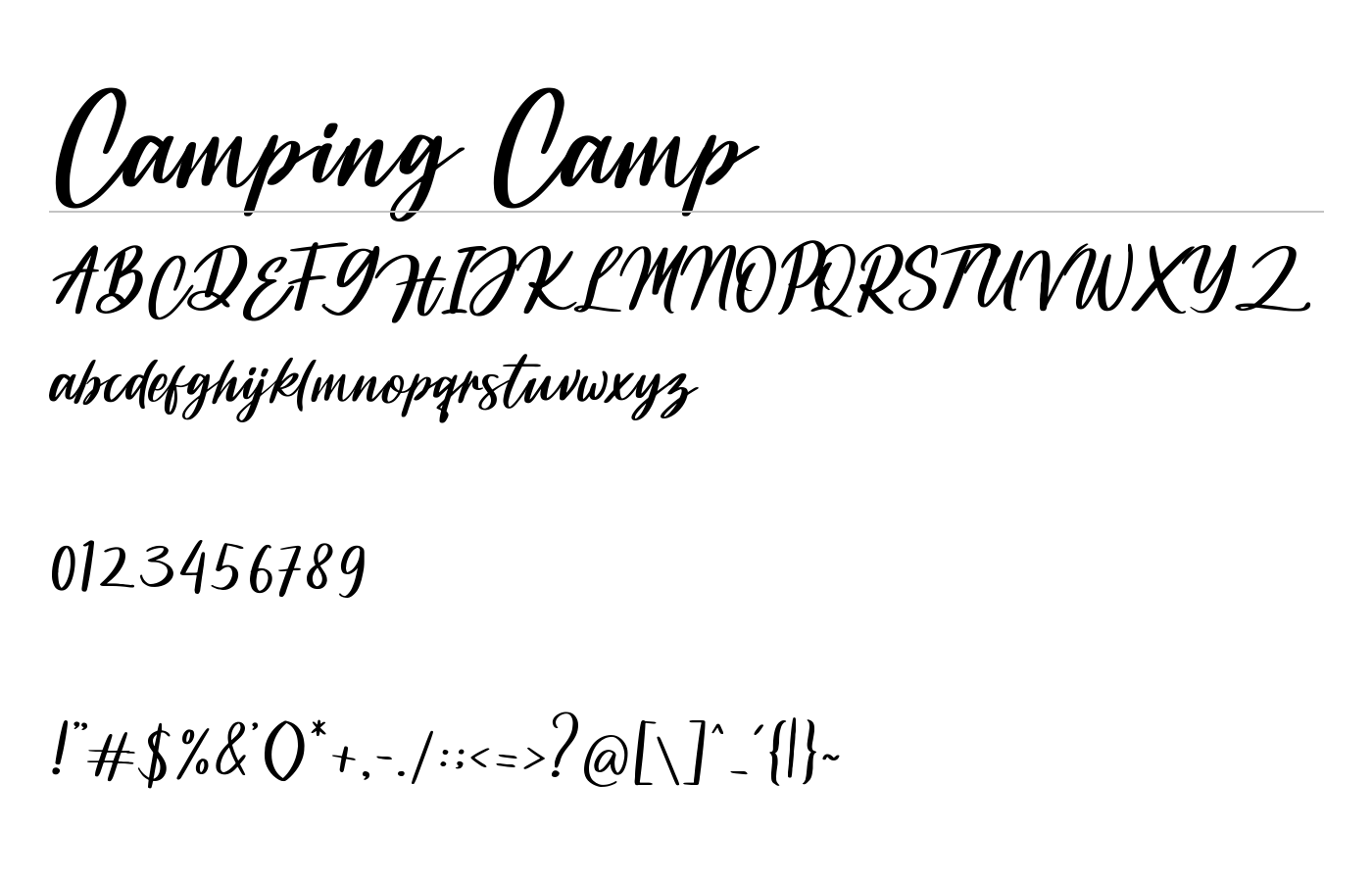
Camping Camp is a lively and casual script font that features a smooth, hand-lettered style with moderate contrast and flowing strokes. Its playful yet elegant character makes it perfect for creative branding, invitations, and lifestyle projects where a warm, personal touch is desired. This font works best in headlines or display text, adding charm and friendliness to any design.
Camping Camp Font
About Camping Camp Font
| Font family | Camping Camp Font |
| Designer | Meli Khatin |